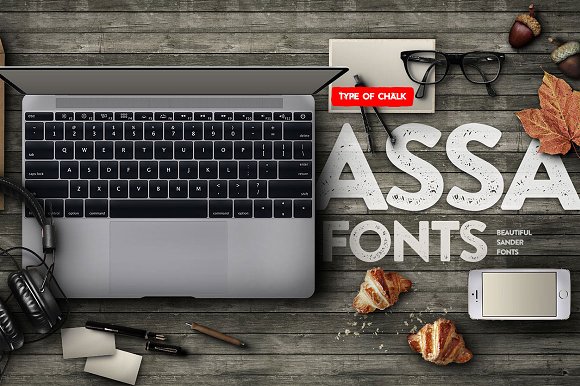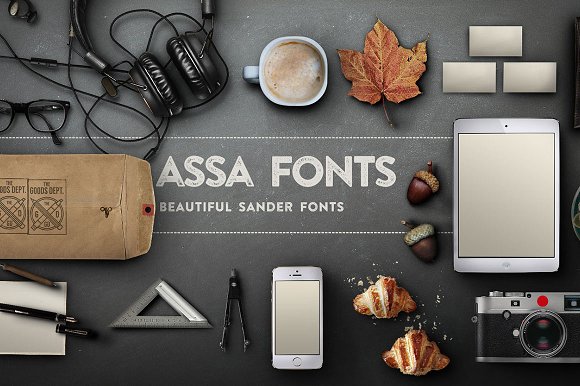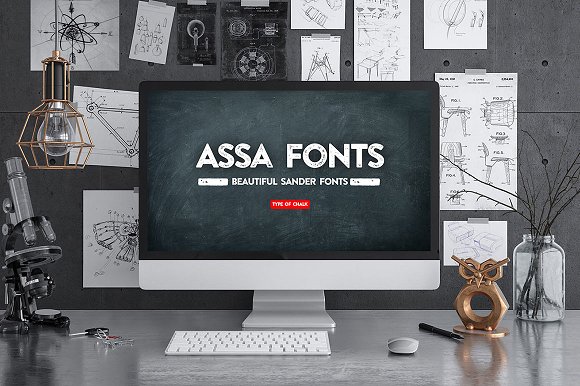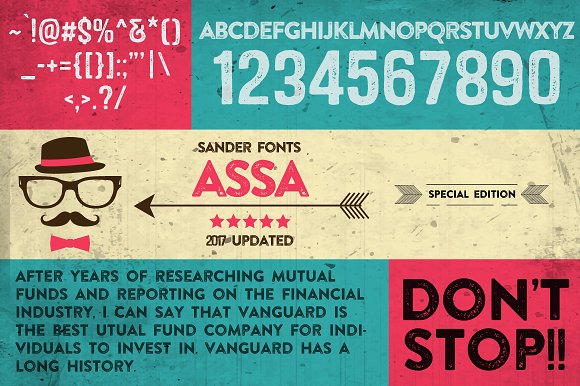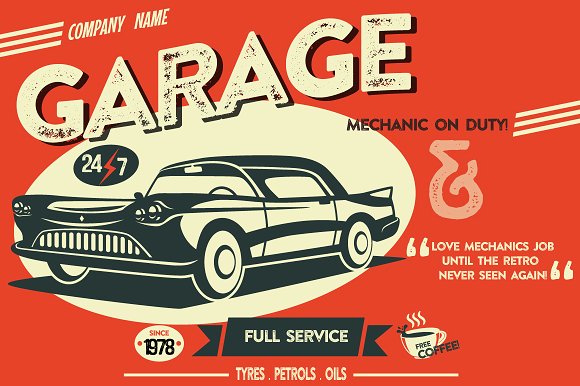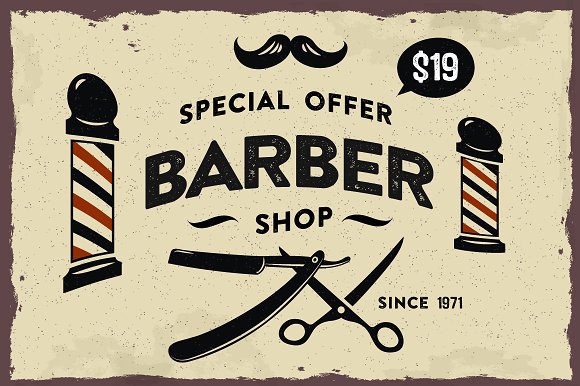
Assa Typeface
Introducing to you a display typeface. Introducing Assa Font! Assa designed by Monsterfonts. Assa Fonts are single font Style Chalk, it is wonderful to be used in the supply and logo design. I highly recommend to use the design in the cafe business, vapor shop, coffee shop, and other themed vintage.